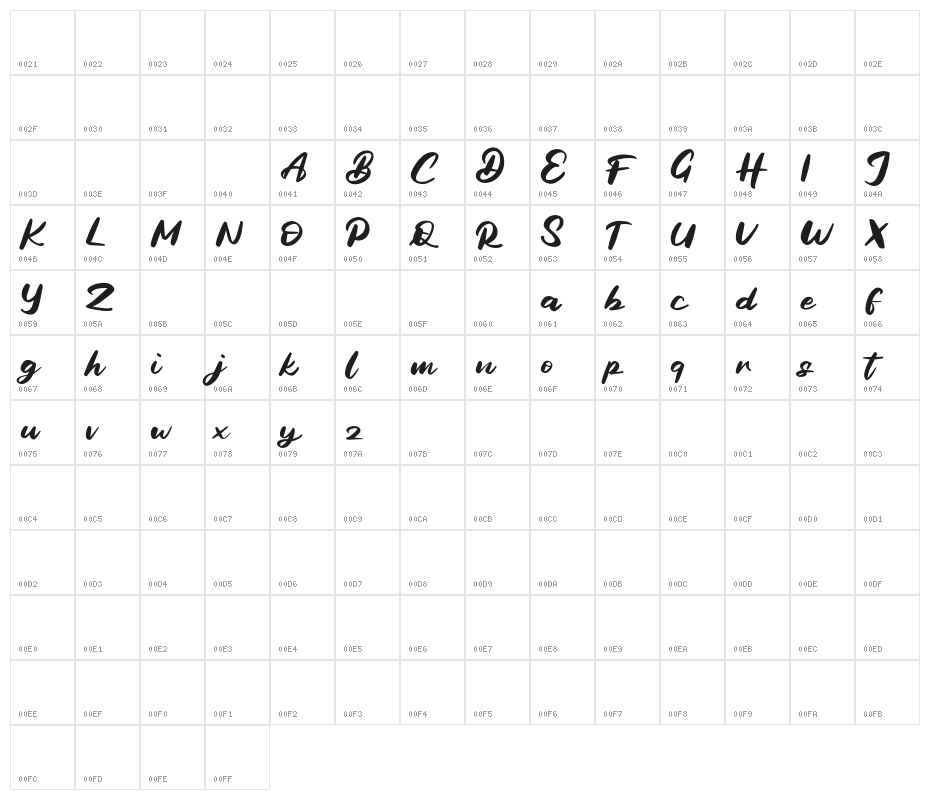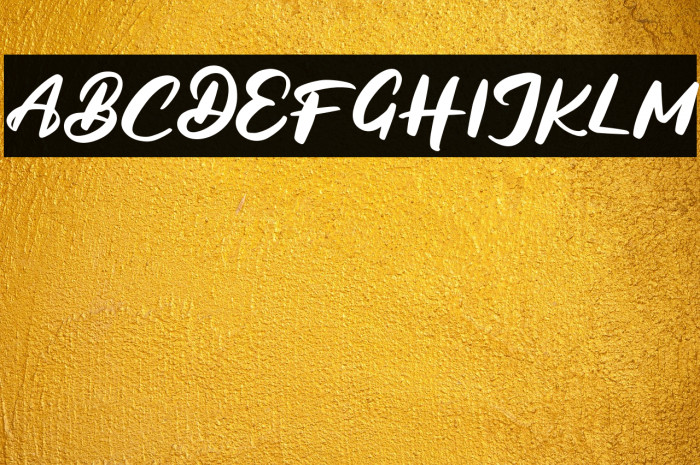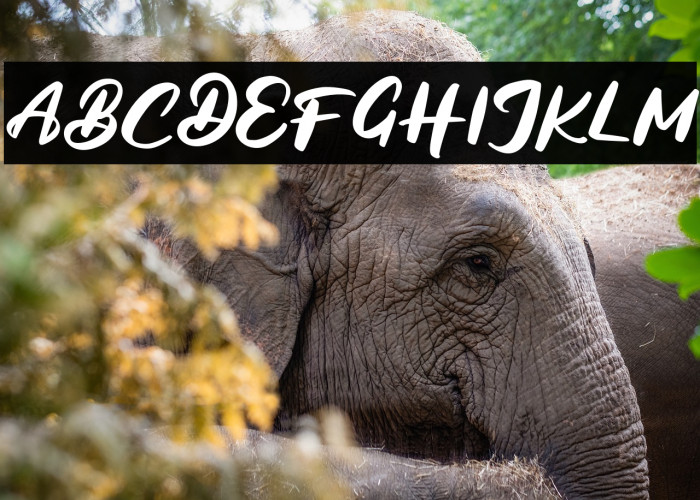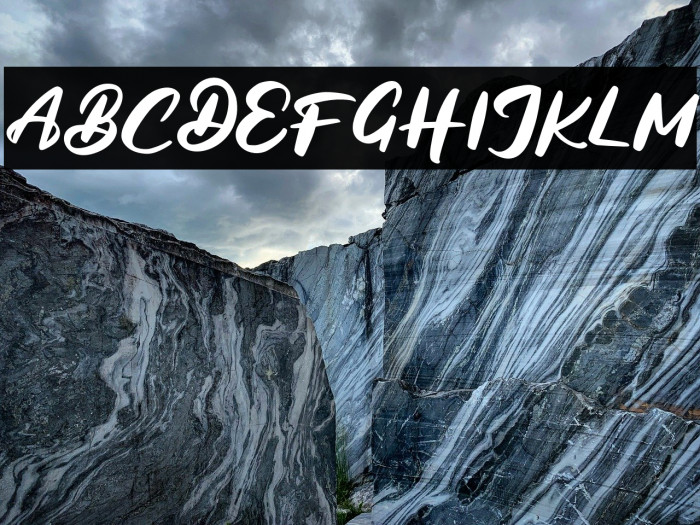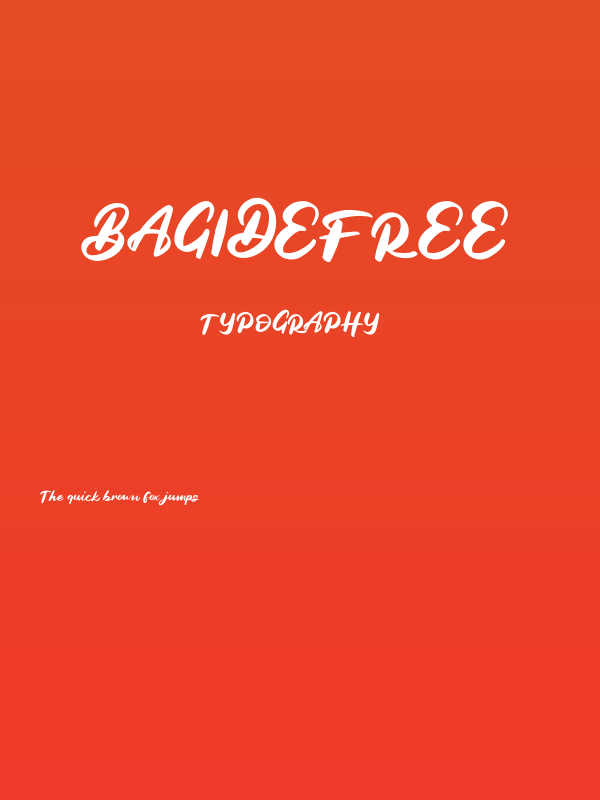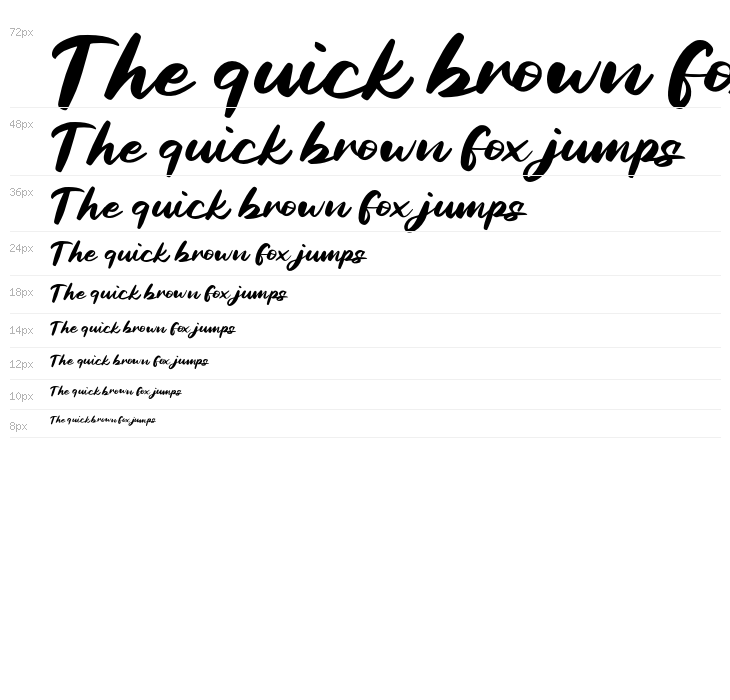
BagideFREE Font
BagideFREE Description
This font features a bold, flowing script style that exudes a sense of elegance and dynamism. The characters are interconnected with smooth, sweeping curves, giving it a handwritten appearance. The uppercase letters are slightly more structured, while the lowercase letters maintain a consistent fluidity. The font's bold weight and medium contrast between thick and thin strokes make it highly legible and visually striking. It is well-suited for creating impactful headlines, logos, and branding materials that require a touch of sophistication and flair.
| Overall Style | Elegant, Dynamic |
| Use Case | Headlines, Logos, Branding |
| Proposed Projects | Ideal for branding, logos, wedding invitations, and elegant packaging designs. |